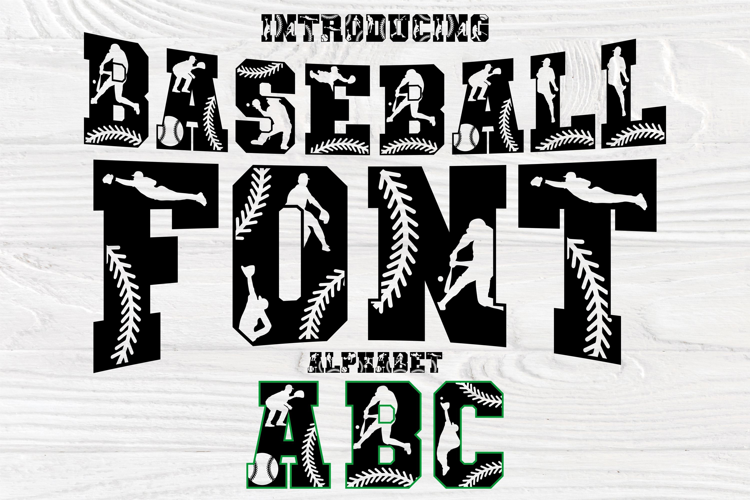
Homerun color font & Batter Display Font
HOMERUN - COLOR FONT
This is an awesome Baseball Sign Fonts graphic element collection. Its captivating character effortlessly melds with t-shirt designs, digital imprints, craft creations, decorative cards, and extensive projects.
BATTER - DISPLAY FONT
Introducing an exceptional collection of Baseball Sign Fonts, perfect for the creative enthusiast. With its enticing character, these fonts blend seamlessly into t-shirt designs, digital impressions, and craft artistry. From decorative greeting cards to large-scale projects, these fonts add a touch of sporting charm and vintage appeal.
Batter
Homerun